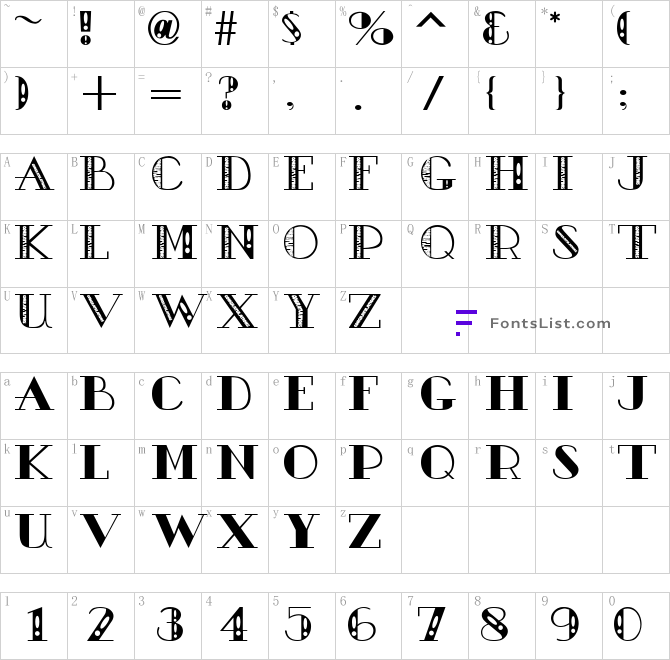
• Font Name:AC4-Congratulations
• Subfamily:FontMonger:AC4 Congratulations
• Full Name:AC4 Congratulations
AC4-Congratulations.ttf is a very beautiful artistic font, AC4-Congratulations.ttf is widely used in the design and printing of various books and pictures,AC4-Congratulations.ttf has a strong visual impact,AC4-Congratulations.ttf is a commonly used font in newspapers, magazines and books, and is used in posters, e-commerce Poster design, store design, logo design, font design and other fields.AC4-Congratulations.